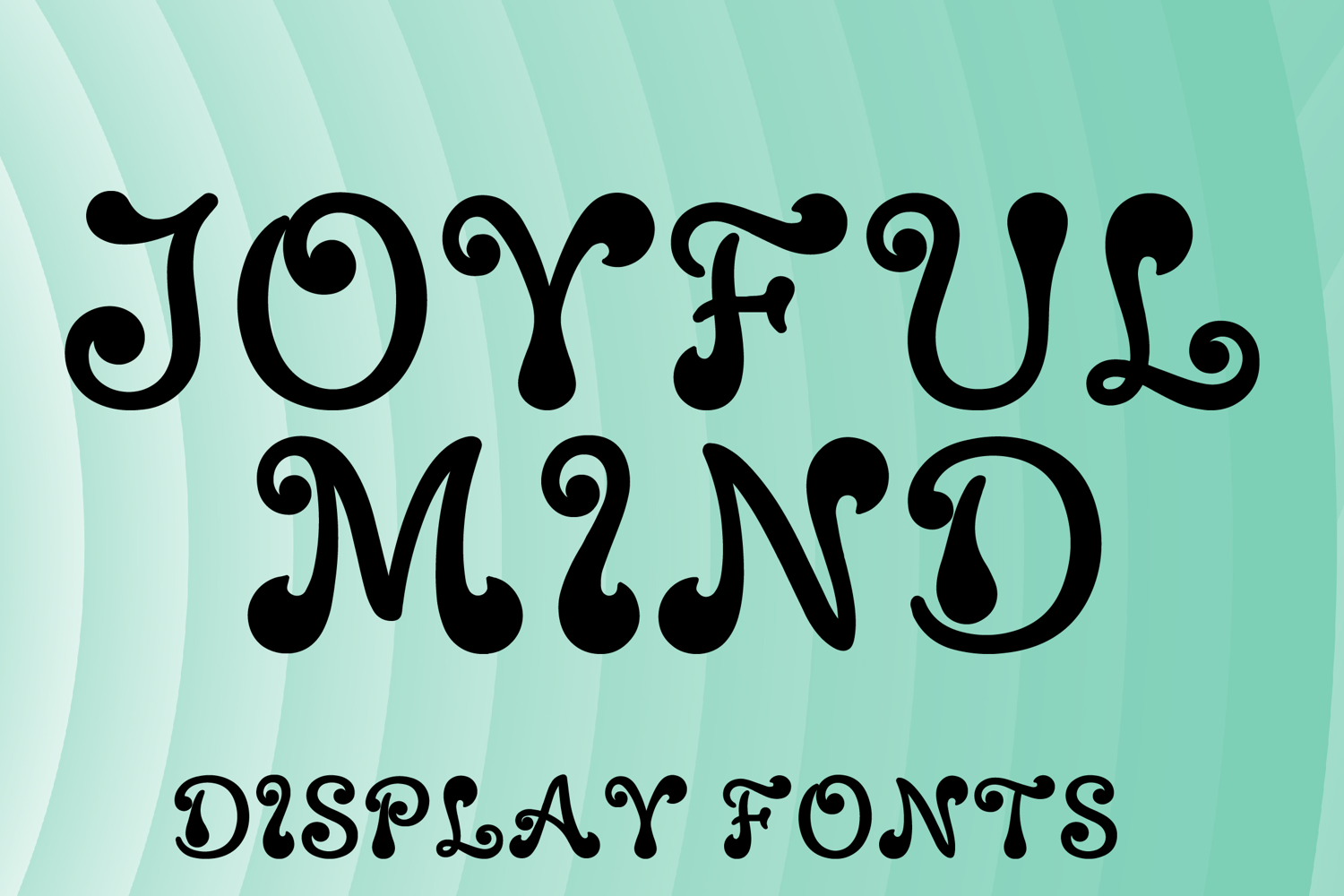
JOYFUL MIND
JOYFUL MIND is a whimsical decorative display font with a playful vintage-inspired style and charming artistic personality. Its uppercase letterforms feature bold rounded strokes, curled terminals, and lively ornamental details that create a cheerful, expressive, and eye-catching look. Designed with uppercase letters A–Z and numbers 0–9, JOYFUL MIND is perfect for branding, posters, packaging, invitations, logos, social media graphics, and creative projects that need a joyful and memorable statement.